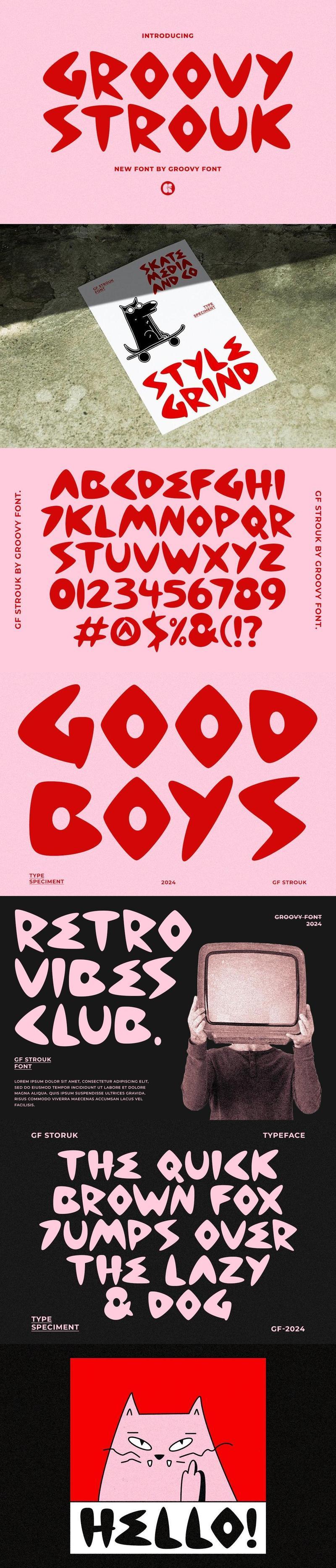
Groovy Strouk QV29HAA
**Groovy Strouk** _by Groovy Font_
Groovy Strouk is a stylish and eye-catching display font that exudes a groovy, retro vibe. With its balanced weight and distinctive letterforms, it is well-suited for titles, headlines, and other prominent text.
This font strikes a harmonious balance between being attention-grabbing and not overly bold, making it versatile for various design applications. Whether used in print or digital media, Groovy Strouk adds a touch of retro flair to any project.